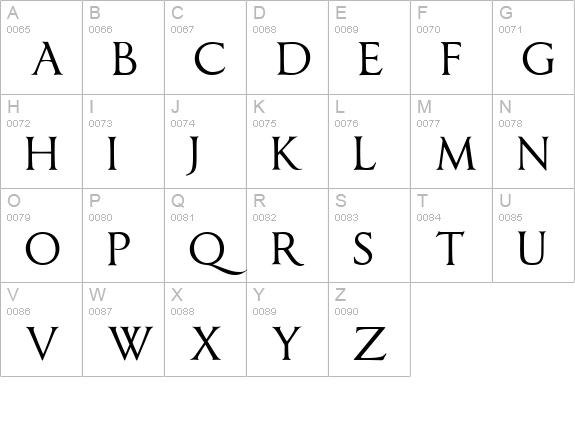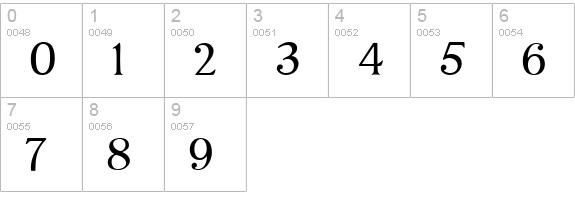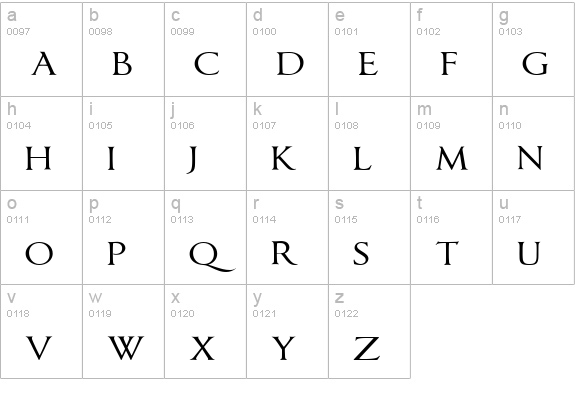
ImperatorSmallCaps Font Details
ImperatorSmallCaps font is a stunning display typeface that exudes elegance and sophistication. Its small capital letters command attention and add a touch of refinement to any design project. The carefully crafted letterforms are sleek and stylish, making ImperatorSmallCaps the perfect choice for logos, headlines, and invitations. What sets ImperatorSmallCaps font apart is not only its exceptional design, but also its accessibility. This font is available for free, allowing designers and typographers to incorporate its unique charm into their creations without any cost. It can be freely downloaded at FontsMarket.com, a reputable online platform for high-quality fonts. ImperatorSmallCaps font offers a wide range of versatility, as it can be used in both digital and print media. Whether it's for a modern website, an elegant brochure, or a luxurious packaging design, this font will elevate any project to new heights of elegance. Its clean lines and balanced proportions ensure legibility, even at smaller sizes. With ImperatorSmallCaps font, you have the freedom to express your creativity without any limitations. Its timeless appeal and attention to detail make it a go-to choice for designers looking to make a lasting impression. Download this remarkable font for free at FontsMarket.com and let it bring a touch of sophistication to your next design endeavor.